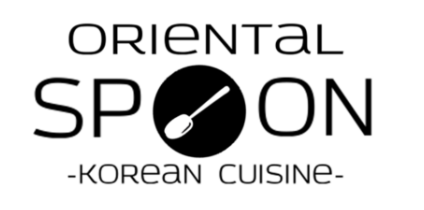
Looking for the font used in this restaurant logo (Oriental Spoon)
I have found similar fonts like Sunflower on google fonts and Enzyme on myfonts.com.  However, there are subtle differences in the legs of the "R" and "K" as well as in the shape of the "O". The restaurant opened around 2013. http://www.orientalspoon.net/
It's not an exact match, but EXT Unicase 400 looks very similar, and has the cap-height lowercase letters. There are some differences though, like the curved leg on the [R] and the tail on the [a]. Cheers!